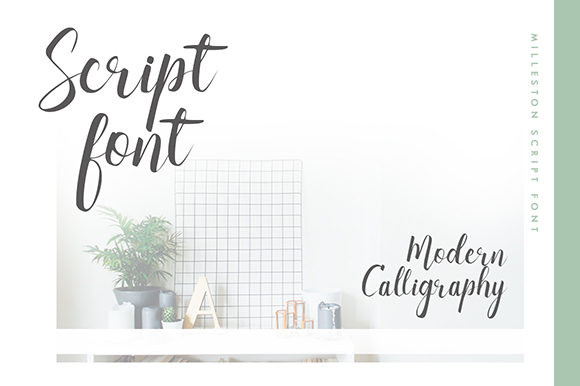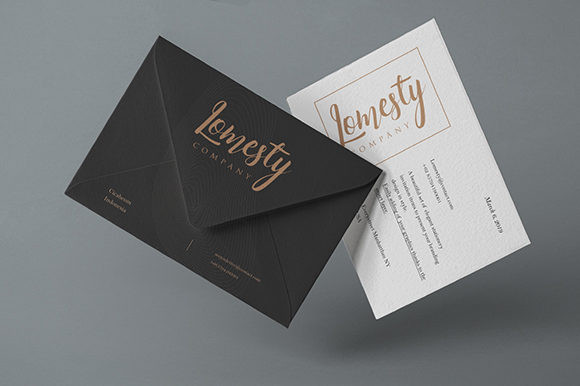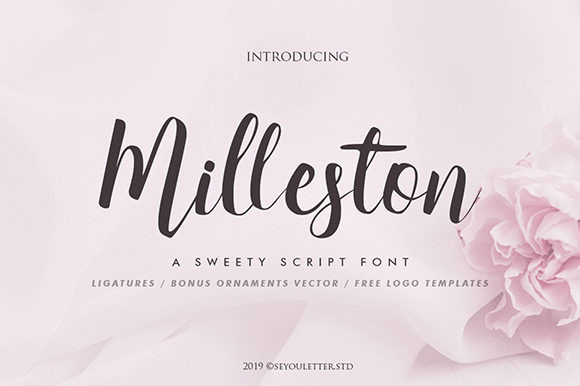
Milleston Font
Milleston is an incredibly sweet and simple crafting font that will add an authentic vibe to any design project. Get inspired by its cool feel.